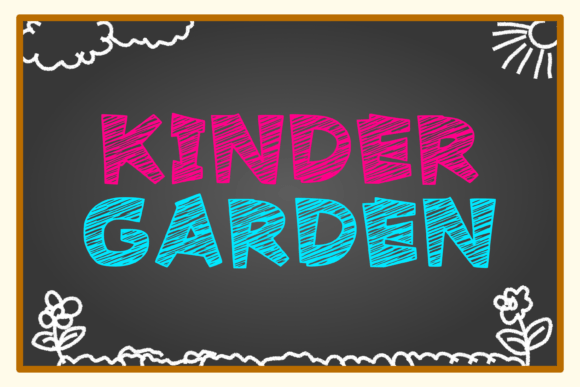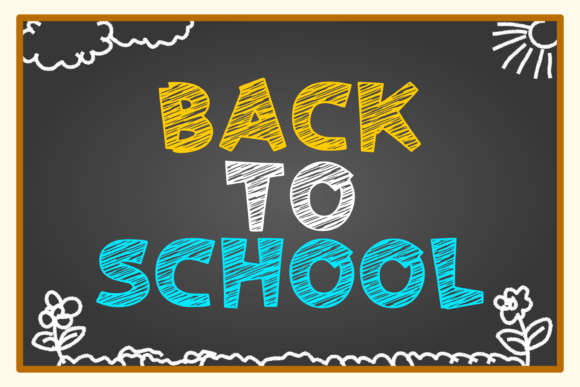
Chalk Scribble Font
Plunge into the pleasant unpredictability of Chalk Scribble, a font that powerfully encapsulates the dynamic and spontaneous nature of chalk drawings. Astoundingly informal, this unique typography invokes the raw allure of a vintage café or the lively essence of a thriving educational setting. Every character originates from an artistic medley, producing a font as flexible and adaptable as chalk on a blackboard.Chalk Scribble poses a delightful contrast of breeziness and solidity, offering to impart a rejuvenating yet soothing aesthetic to any design. If you’re on a quest to fascinate while exuding a relaxed vibe, then Chalk Scribble is undoubtedly the ideal choice. Merge retrò allure with modern panache and let your imagination take the reins!